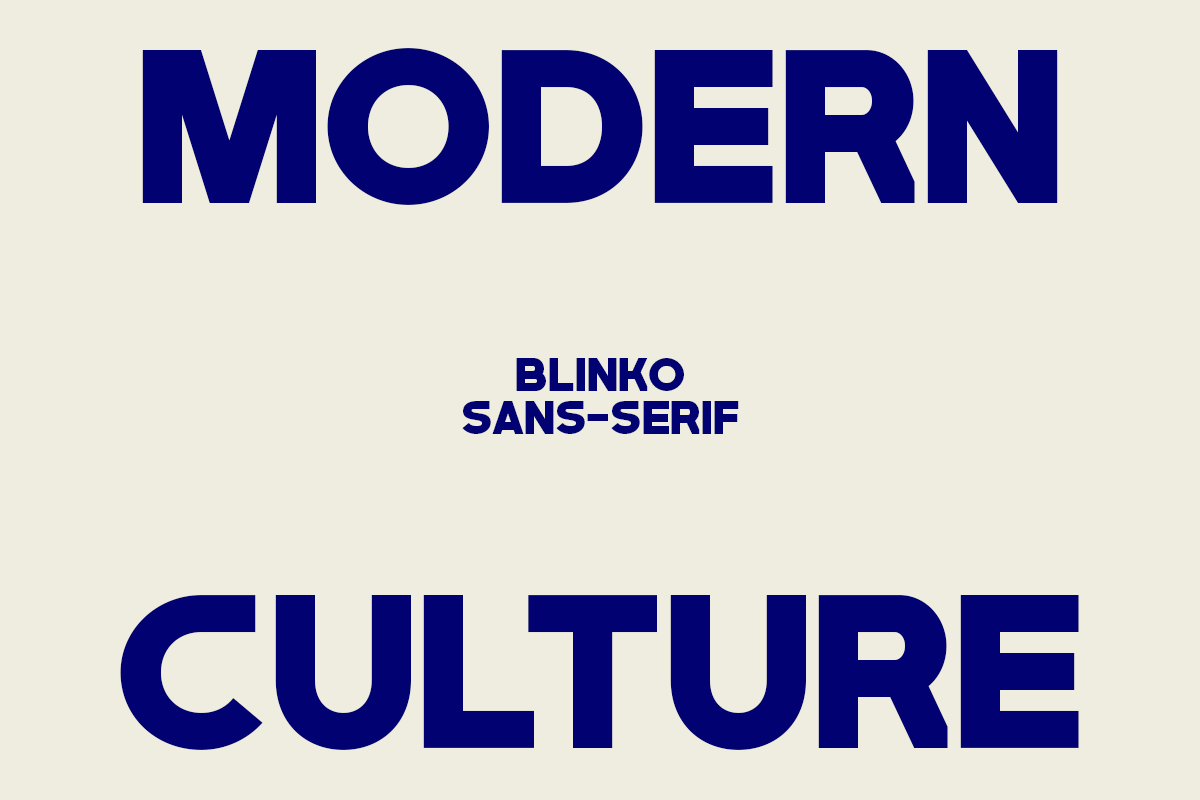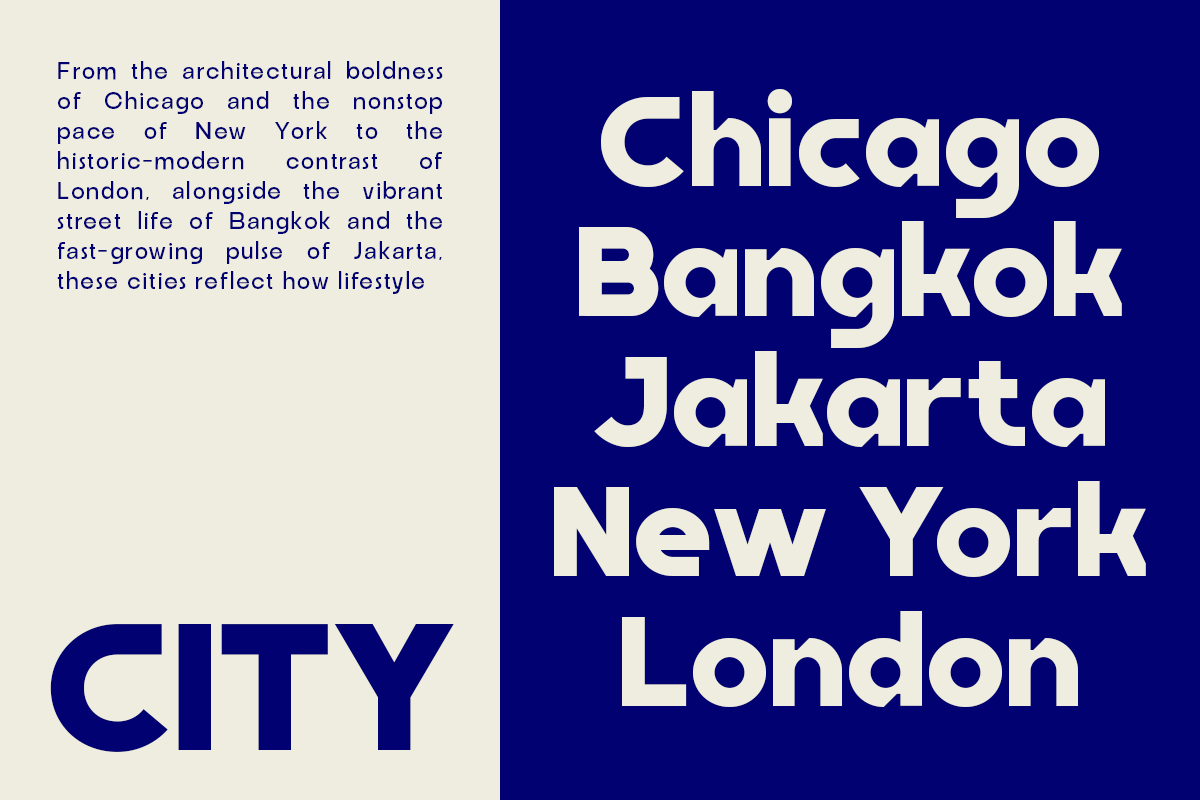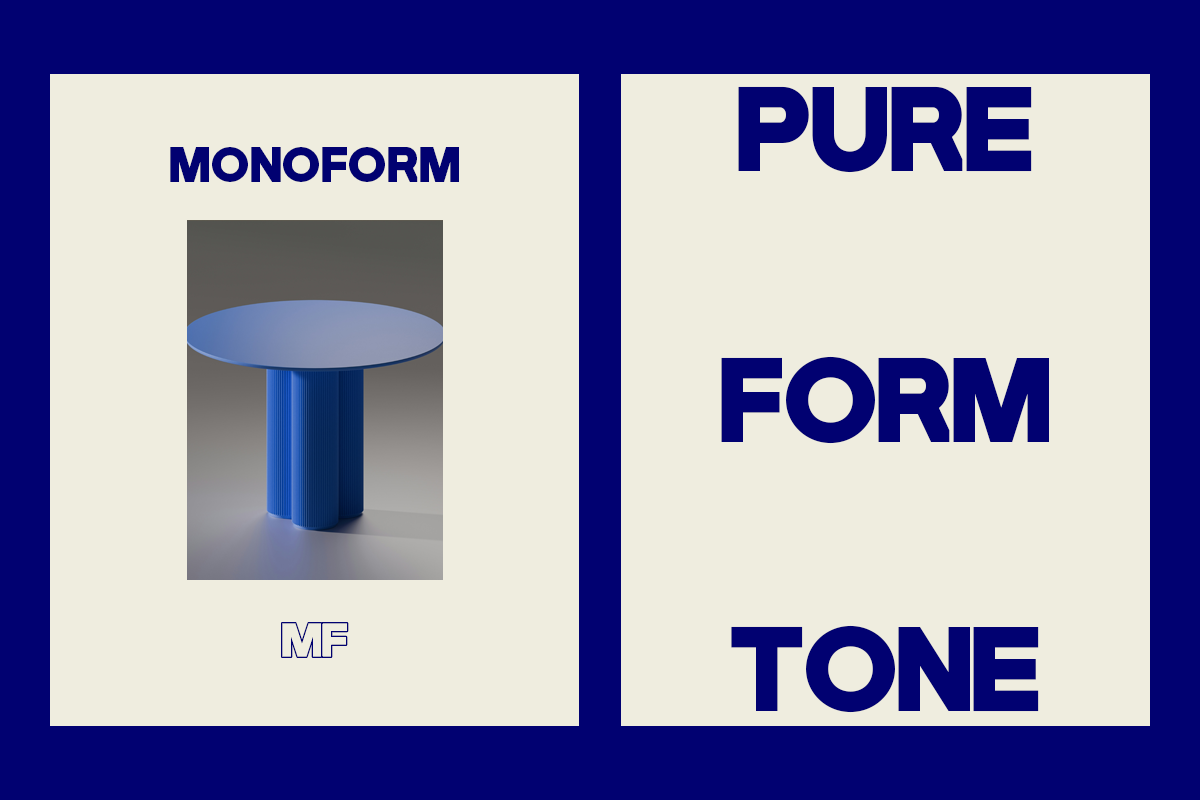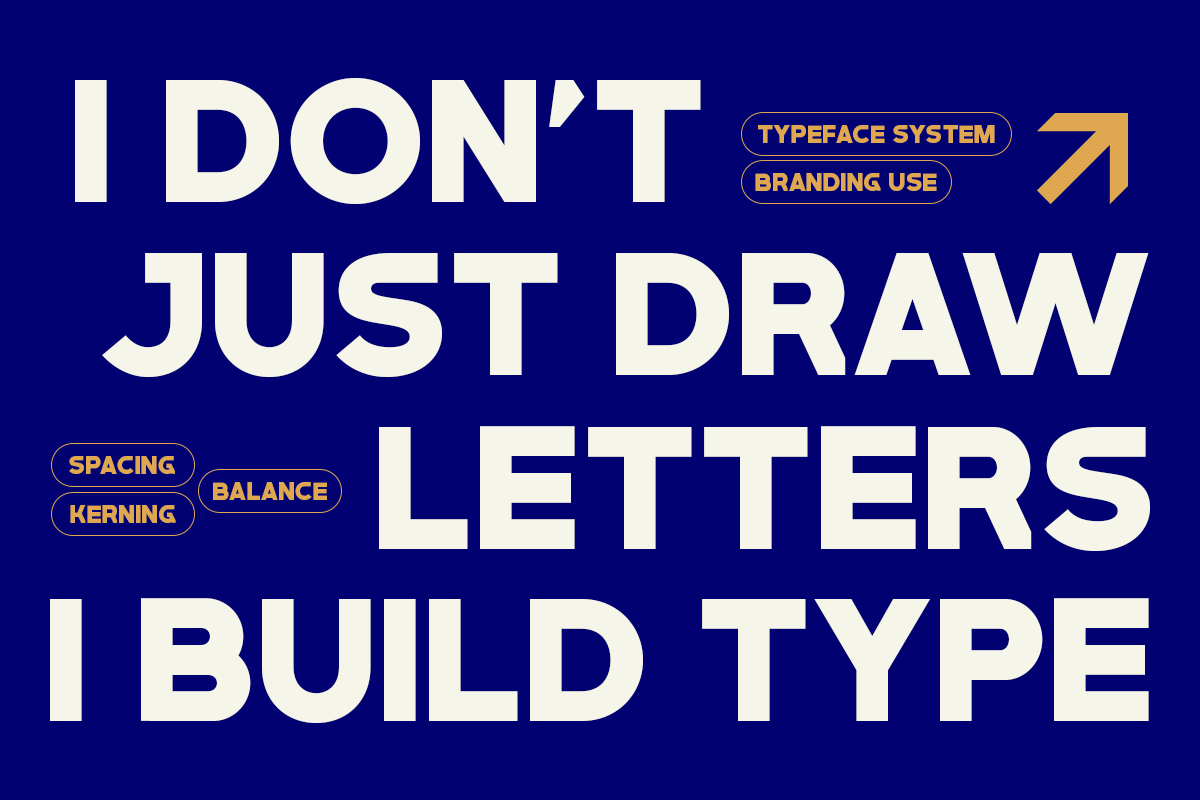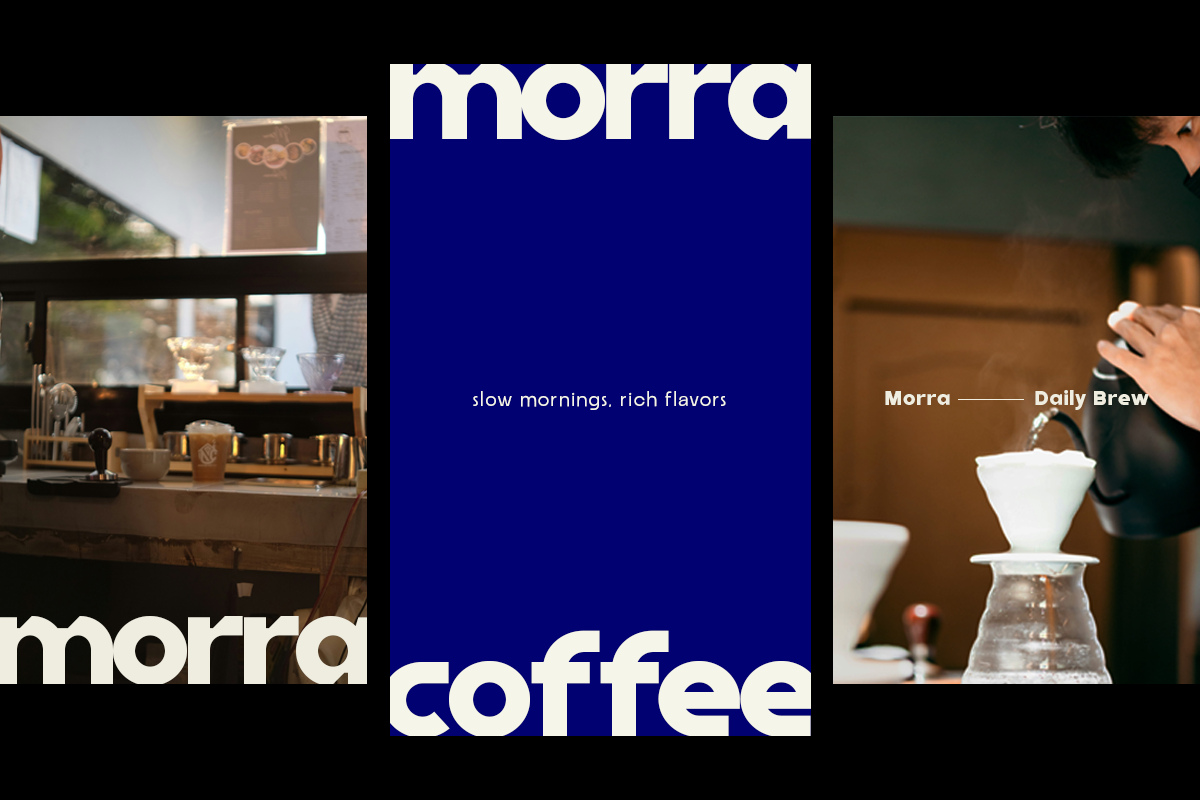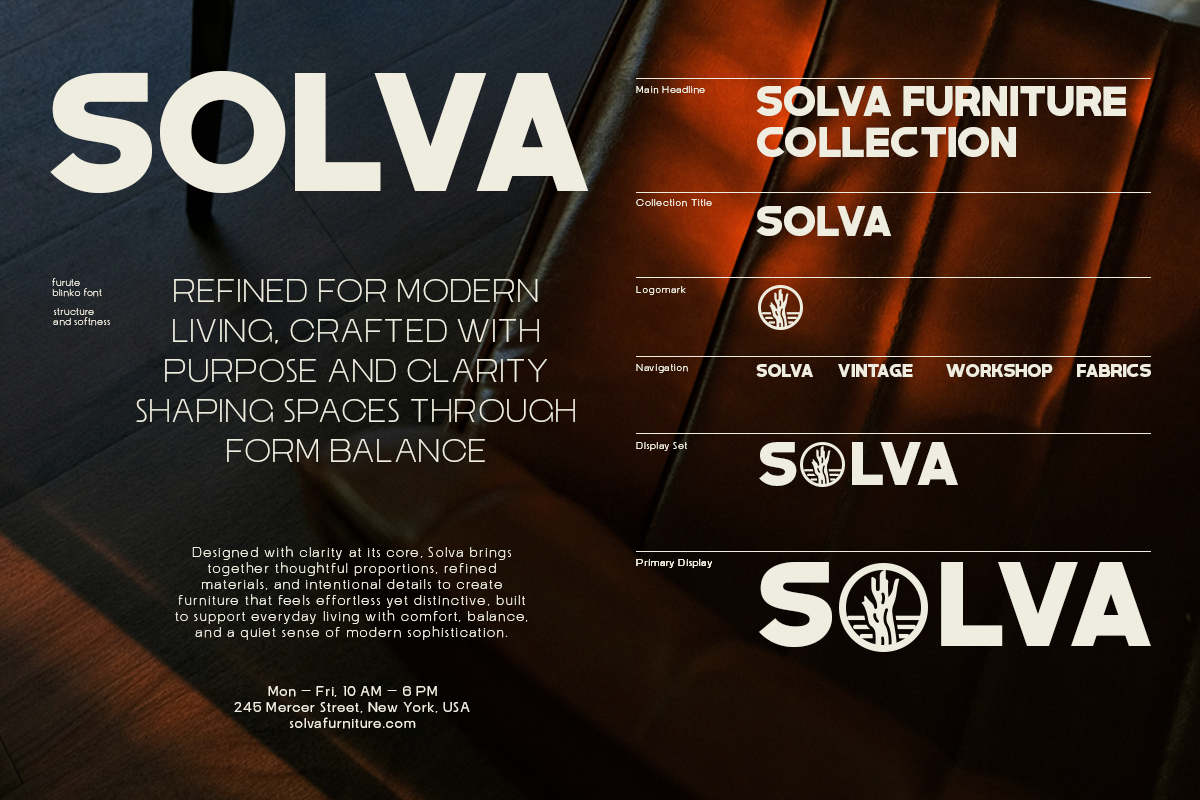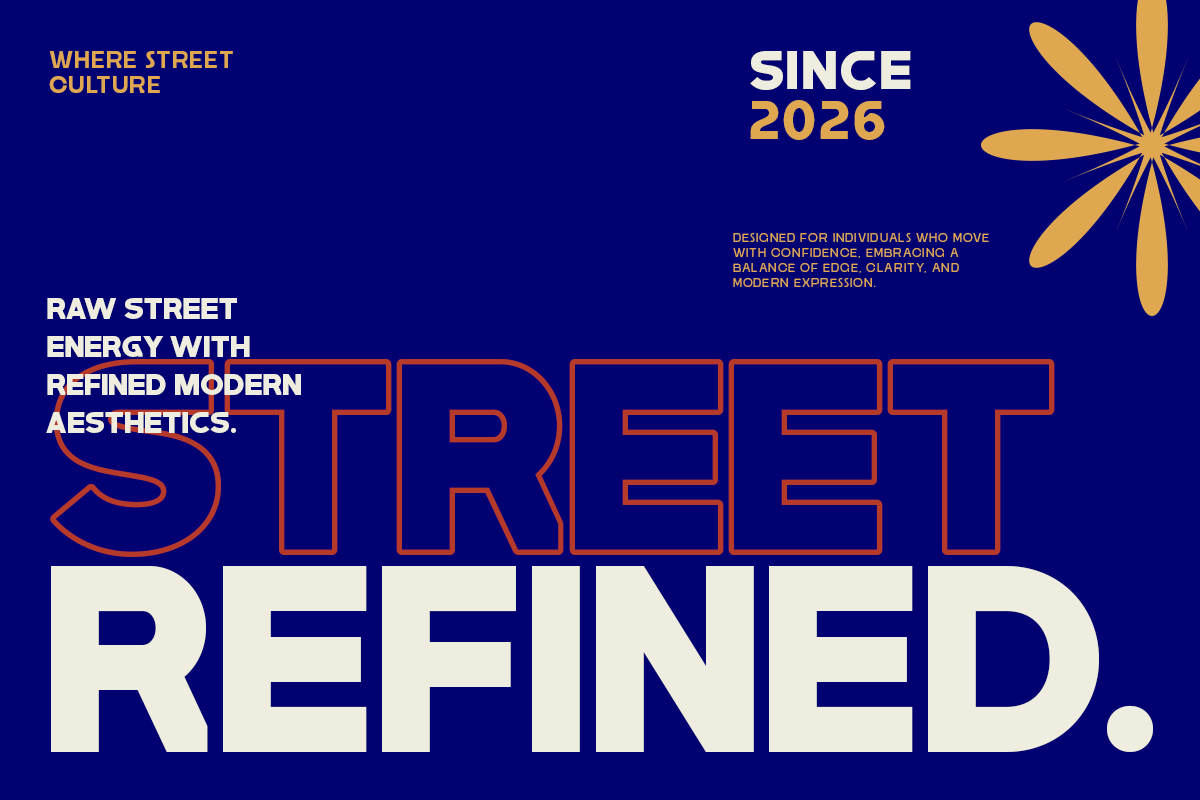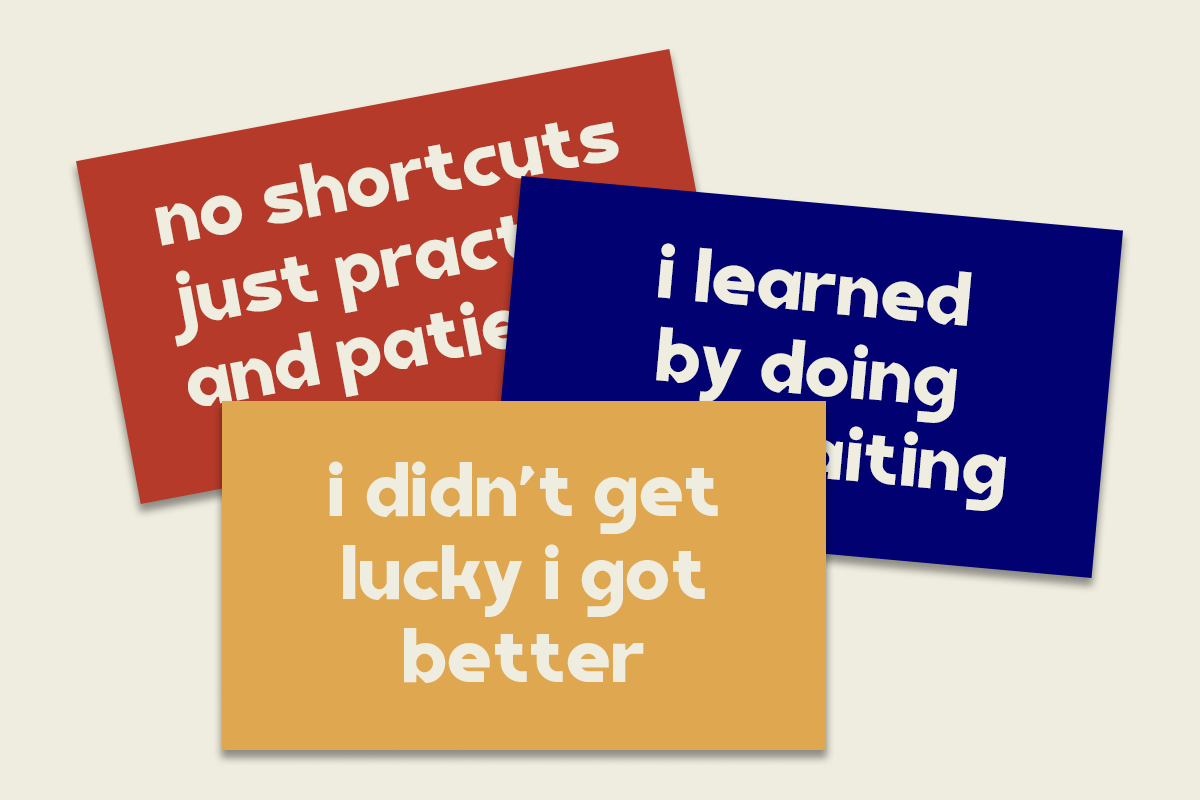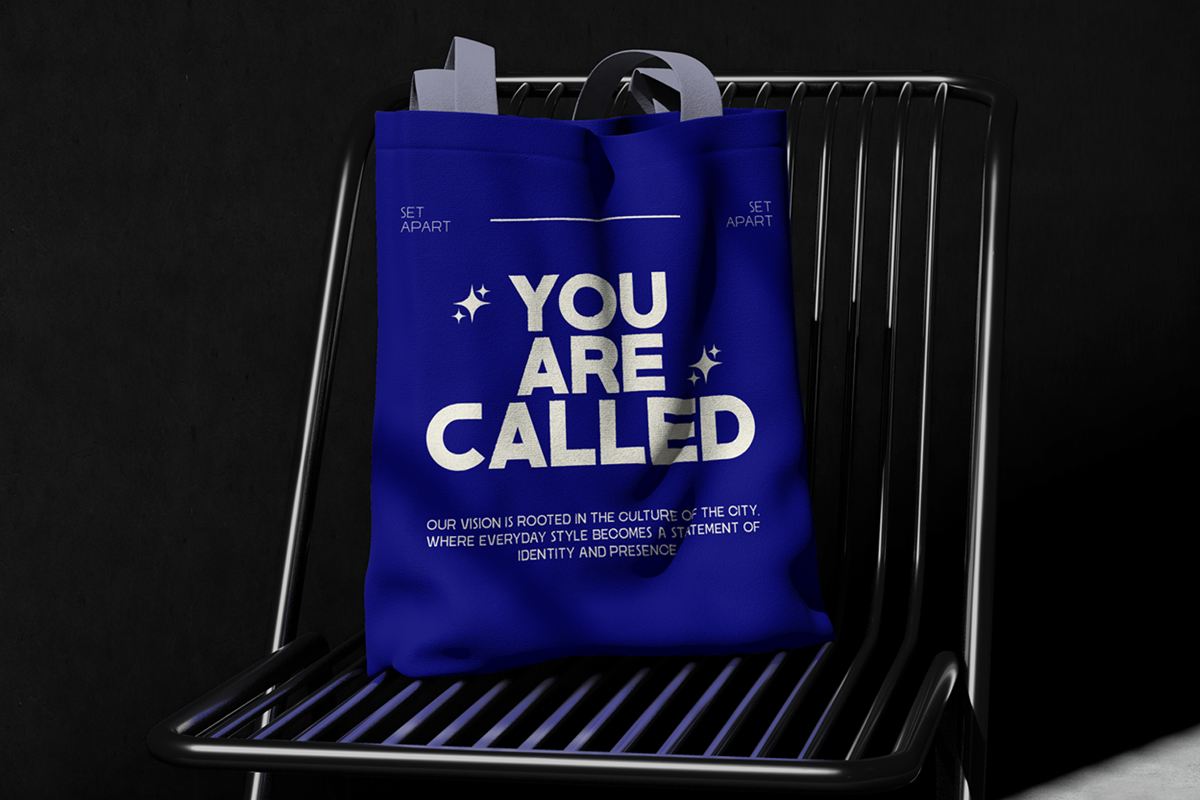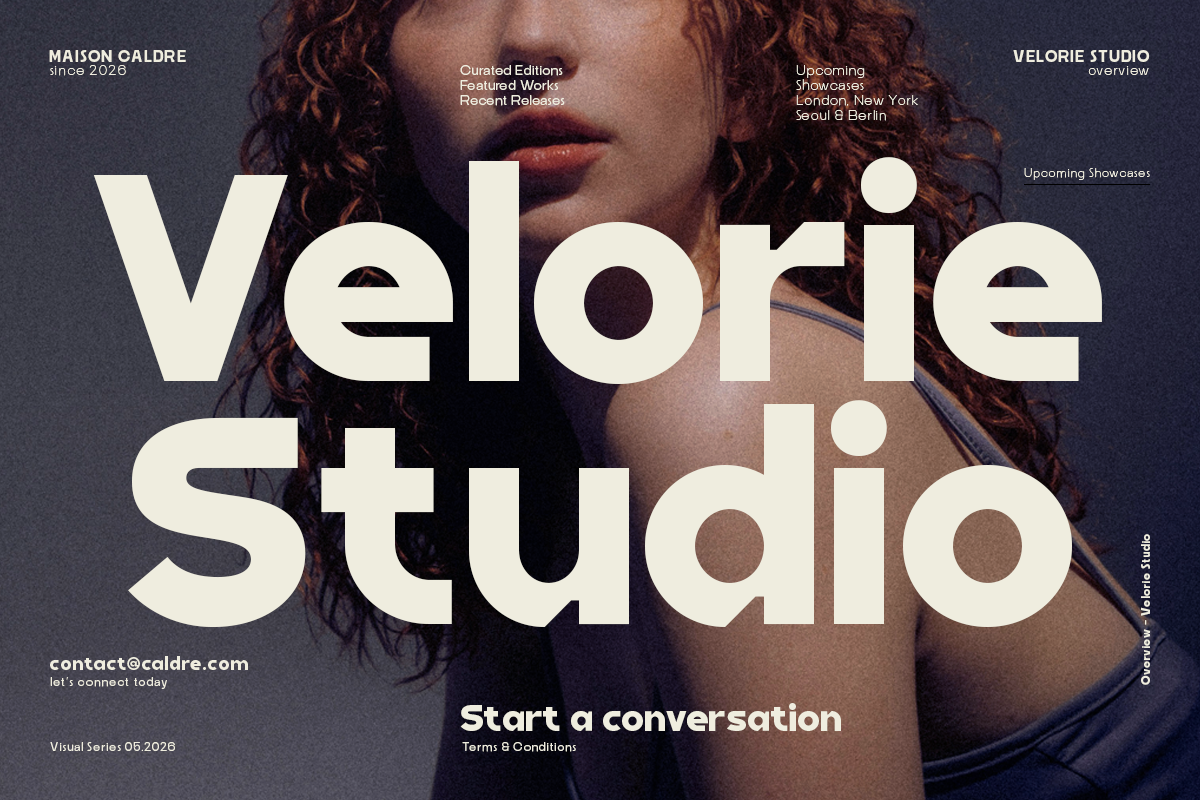
Blinko – A Bold Rounded Display Font
Blinko is a bold rounded display sans-serif designed to bring energy and personality into modern design. With its soft curves and chunky proportions, it creates a strong yet friendly presence that stands out instantly. Carefully crafted with smooth shapes and balanced spacing, Blinko ensures readability while maintaining its playful character. The rounded terminals and bold weight make it highly effective for eye-catching compositions and expressive typography. Perfect for branding, logos, packaging, posters, social media, and editorial headlines, Blinko adds warmth and impact to any visual project.
Regular, Oblique, and Outline display style
Smooth curves & soft edges
Uppercase & lowercase
Clean spacing & kerning
Perfect For : Branding, logo design, packaging, posters, social media, advertising, editorial headlines.